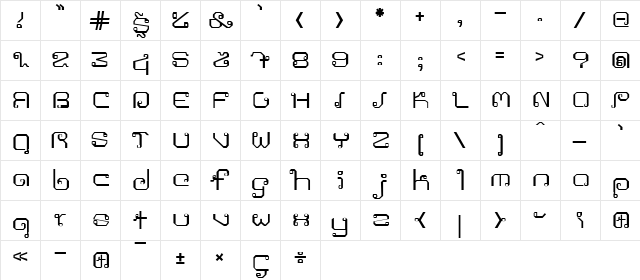
Khmer Regular
| Foundry | Tom Tor, |
| Designer | Tom Tor |
Design Context for Khmer Typeface
Khmer is a composed and adaptable typeface that performs quietly and consistently across a wide range of design contexts.